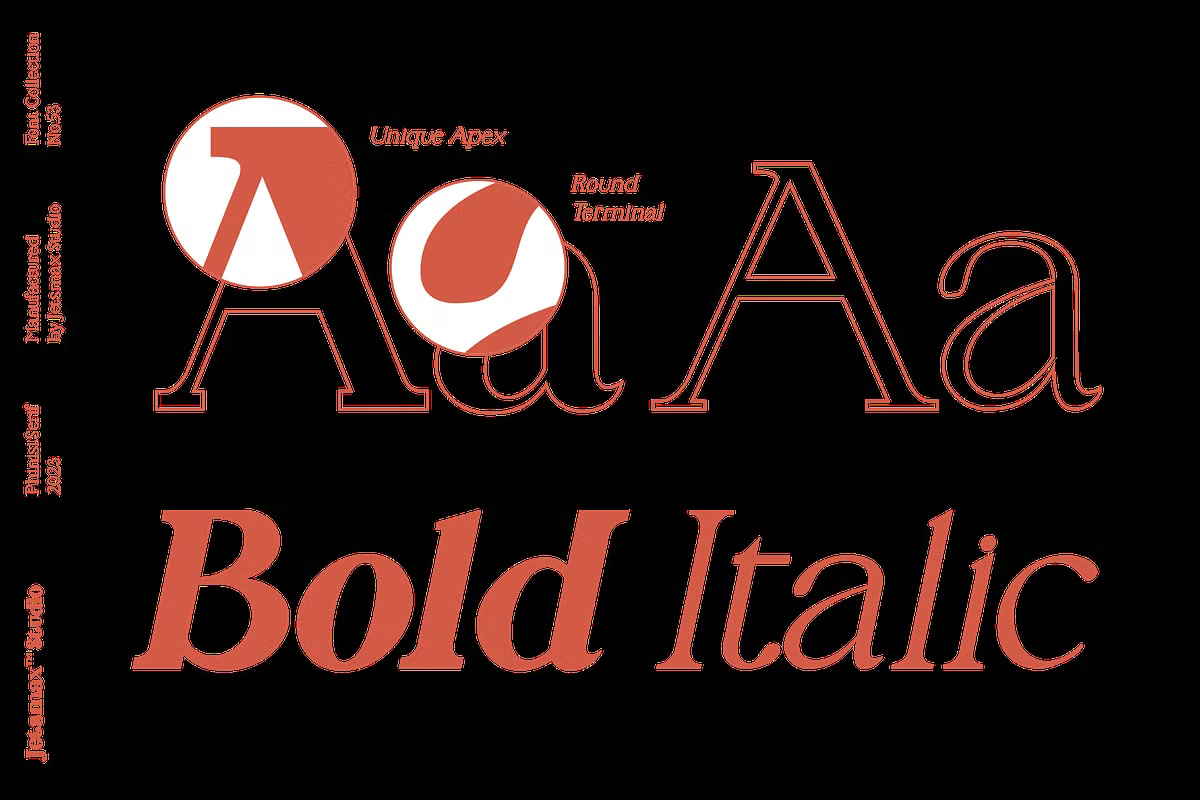
Phinisi Serif Font Family
Phinisi Serif Font Family is a modern classic typeface that embodies both sophistication and versatility. With multiple weights and styles, it seamlessly adapts to a wide range of projects, from corporate publishing to playful and expressive designs.
Designed for optimal legibility, Phinisi Serif ensures a refined yet approachable aesthetic, making it a perfect choice for both professional and creative applications.